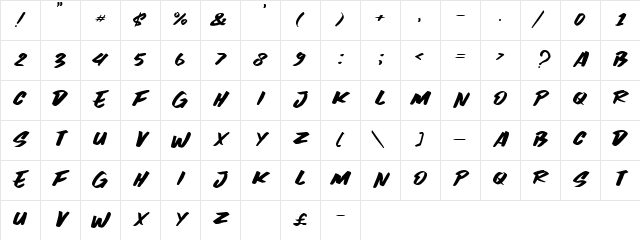
Black Spirit Regular
Designer: Lettersiro 2018
Design Context for Black Spirit
Black Spirit is a composed and adaptable typeface that performs quietly and consistently across a wide range of design contexts.